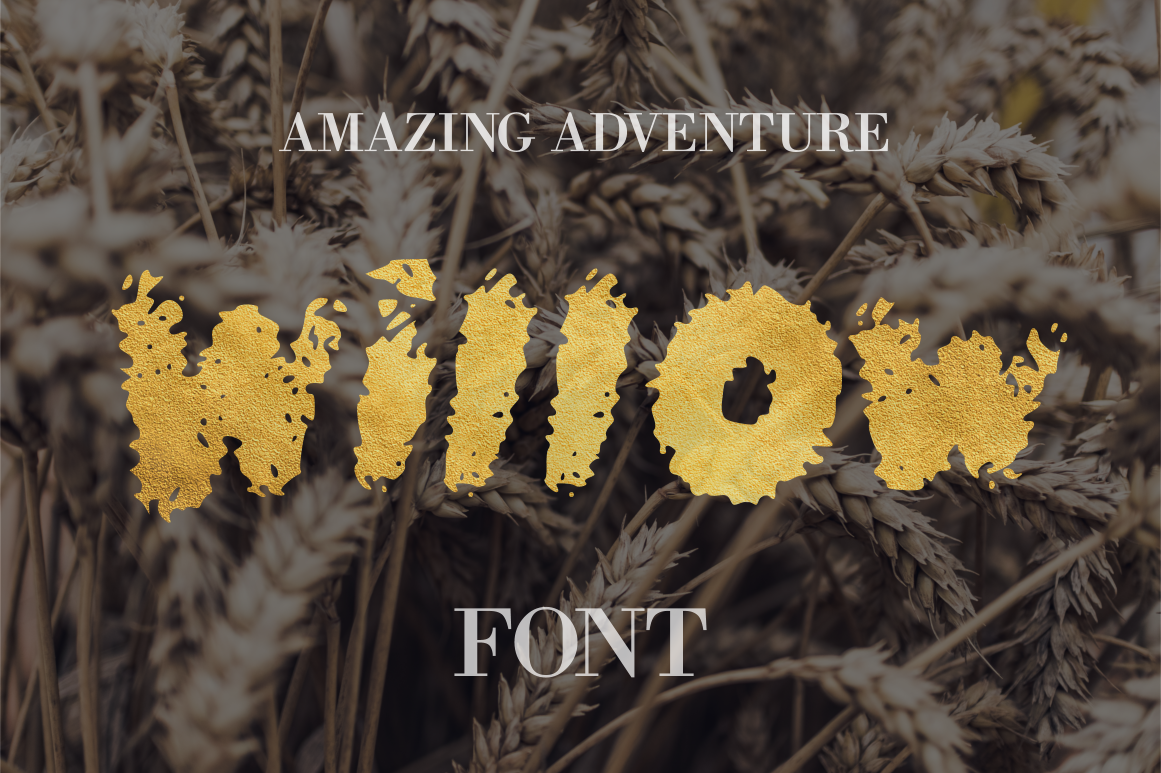
Willow Font you can use it for any kind of logo creation or just for fun. You can create a movie logo, artist logo, website logo. Examples: You can create a big colorful logo to print for kids room or funny text board stickers. To make more fun, you can add layers of colors, images to the font. The font is in high resolution and can be zoomed, edited, rotated, configured as you wish. In the package include uppercase letters, lowercase letters, numbers, punctuation.